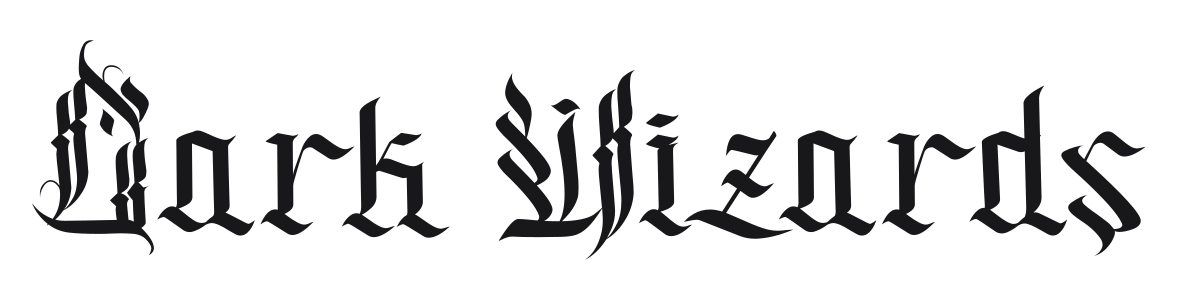
Dark Wizards
by Blackletter Studio
Dark Wizards is a bold gothic blackletter with razor-sharp angular strokes and dramatic high contrast between thick stems and fine hairlines. The design leans into an occult, arcane character with deeply notched junctions and pointed diamond terminals. It works at large sizes for heavy metal album art, fantasy game titles, and dark-themed branding.